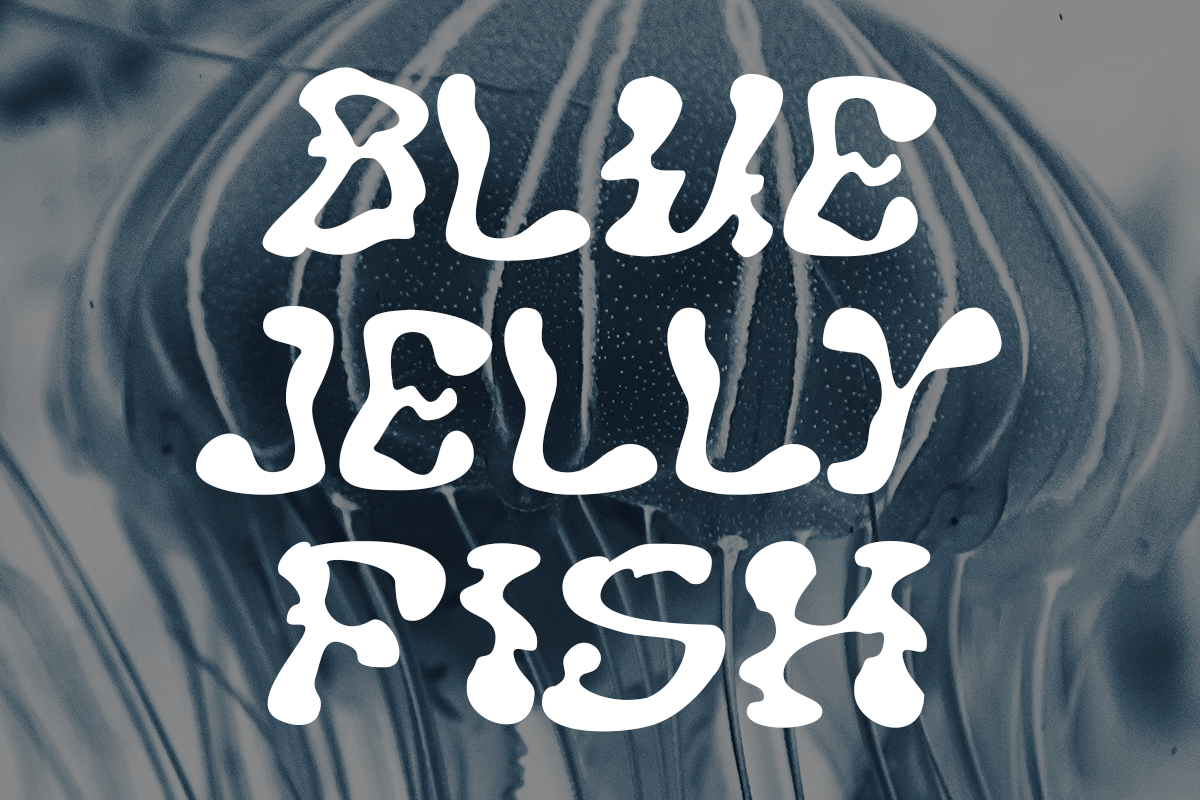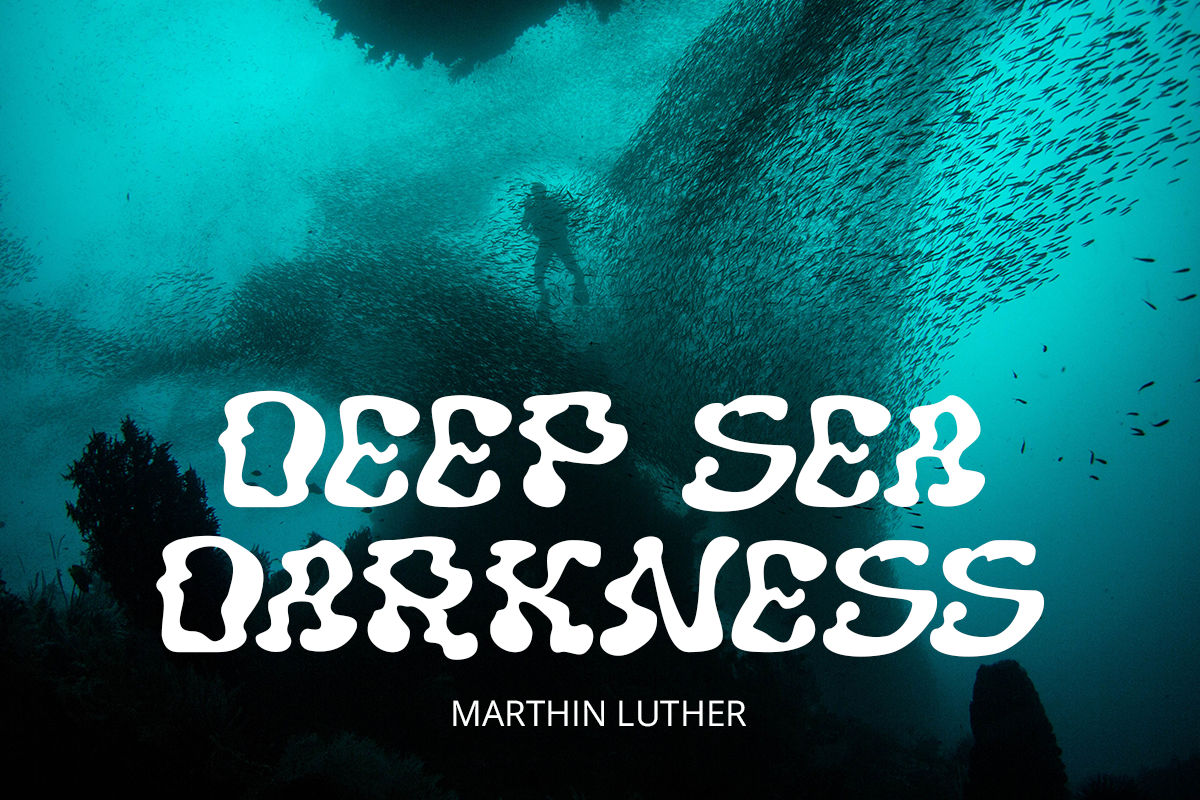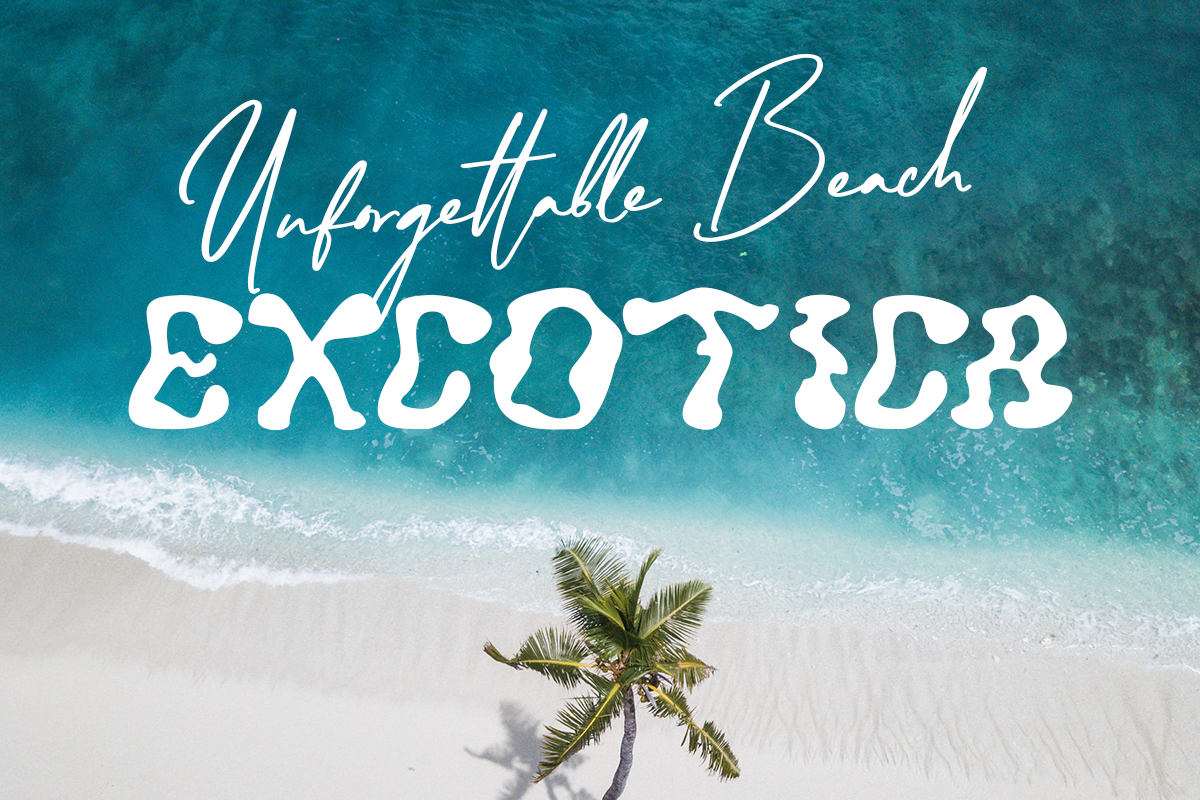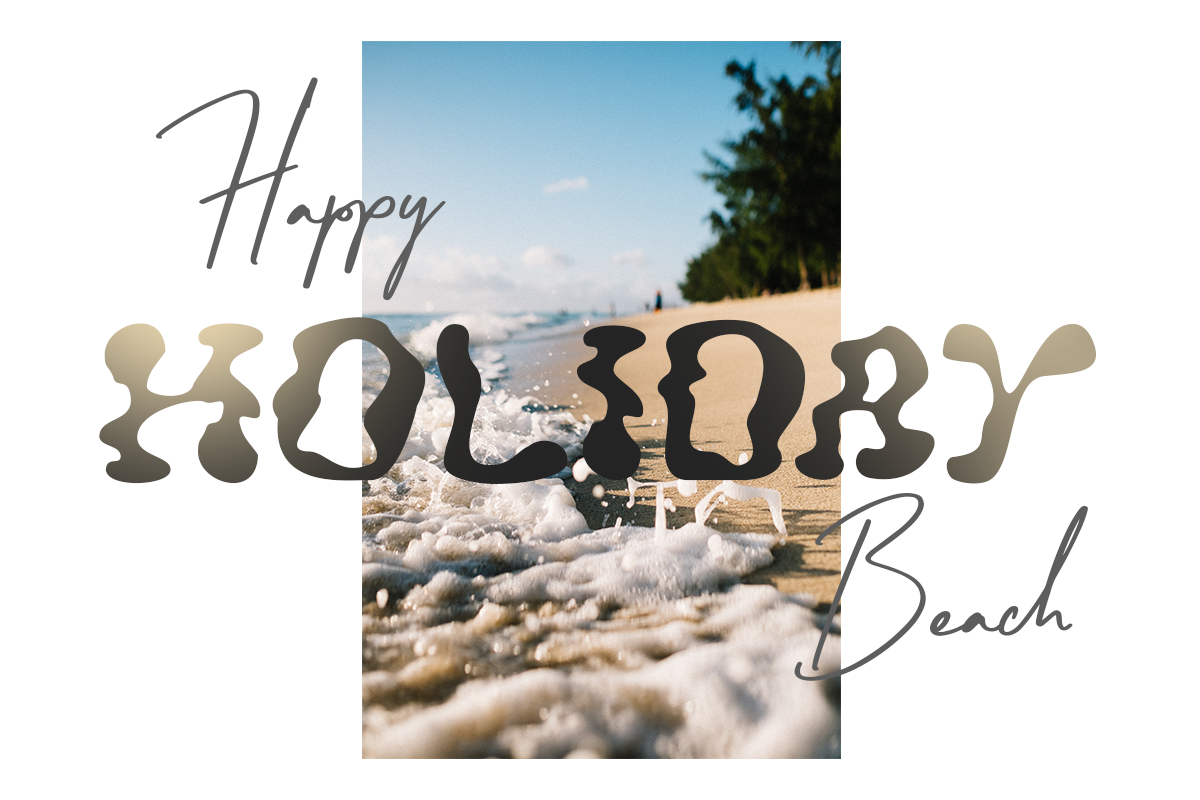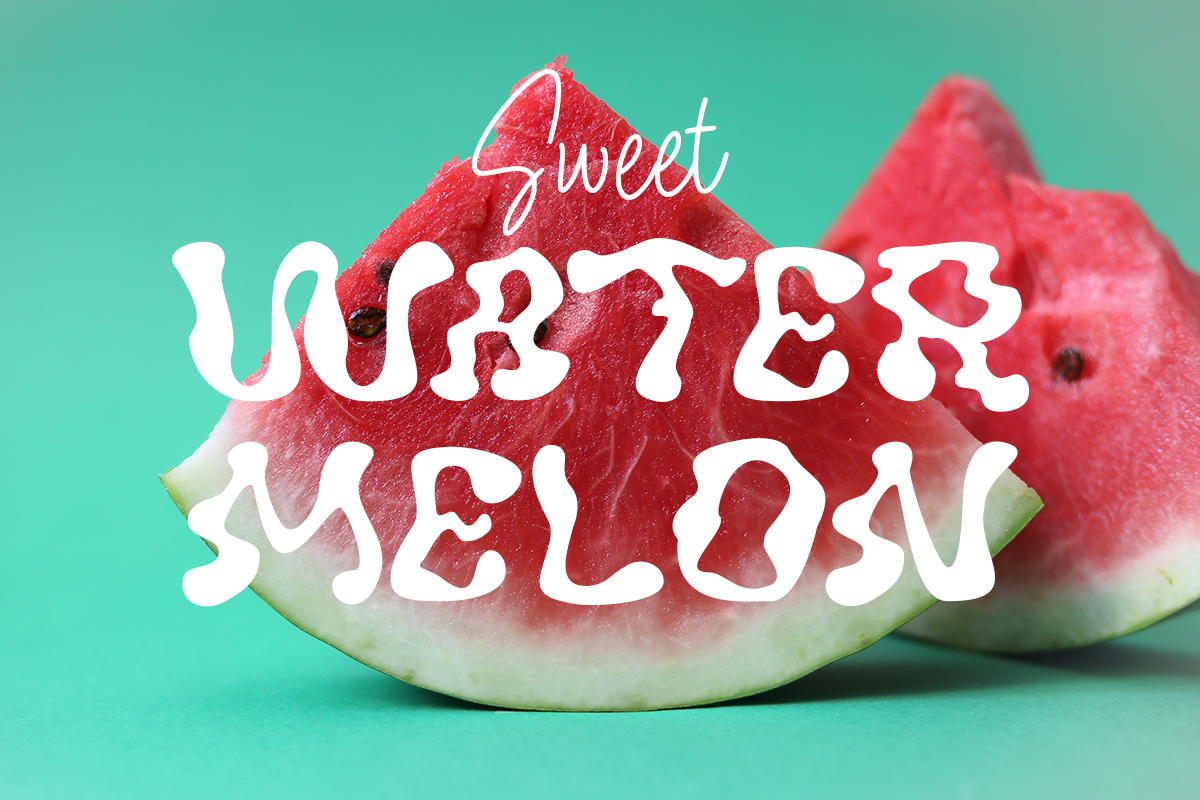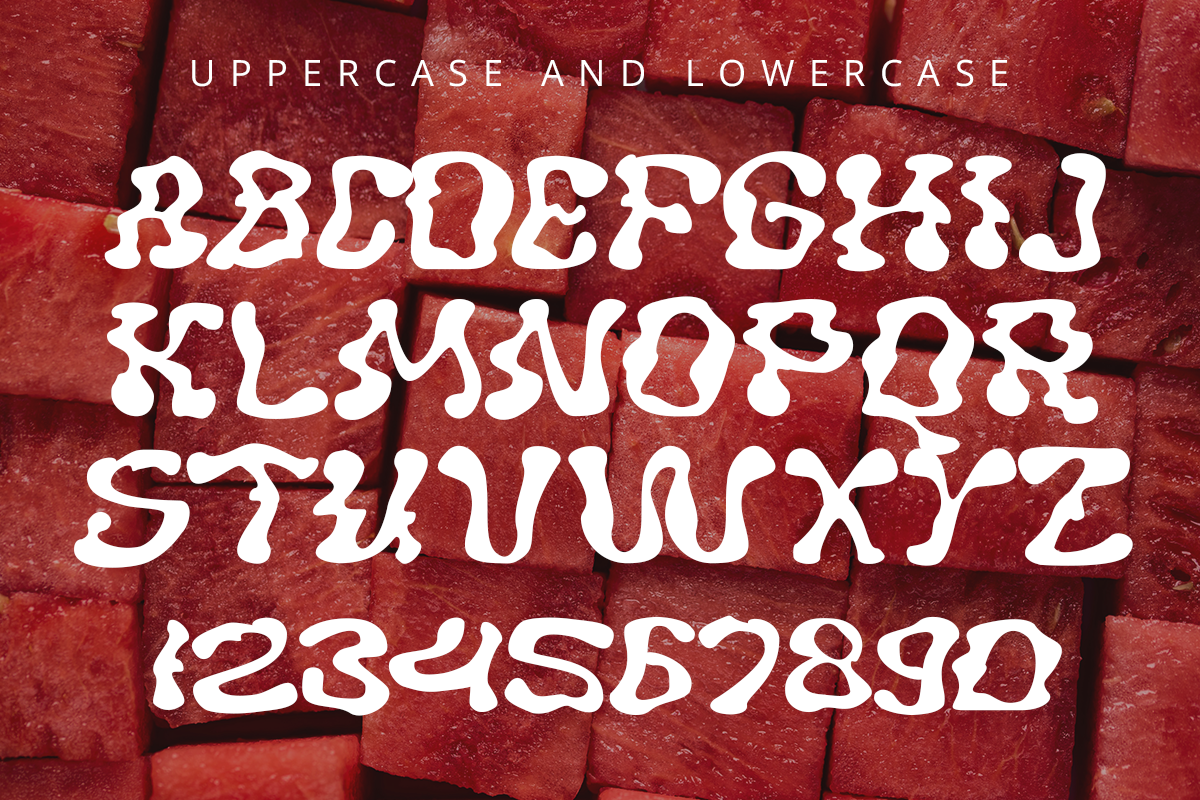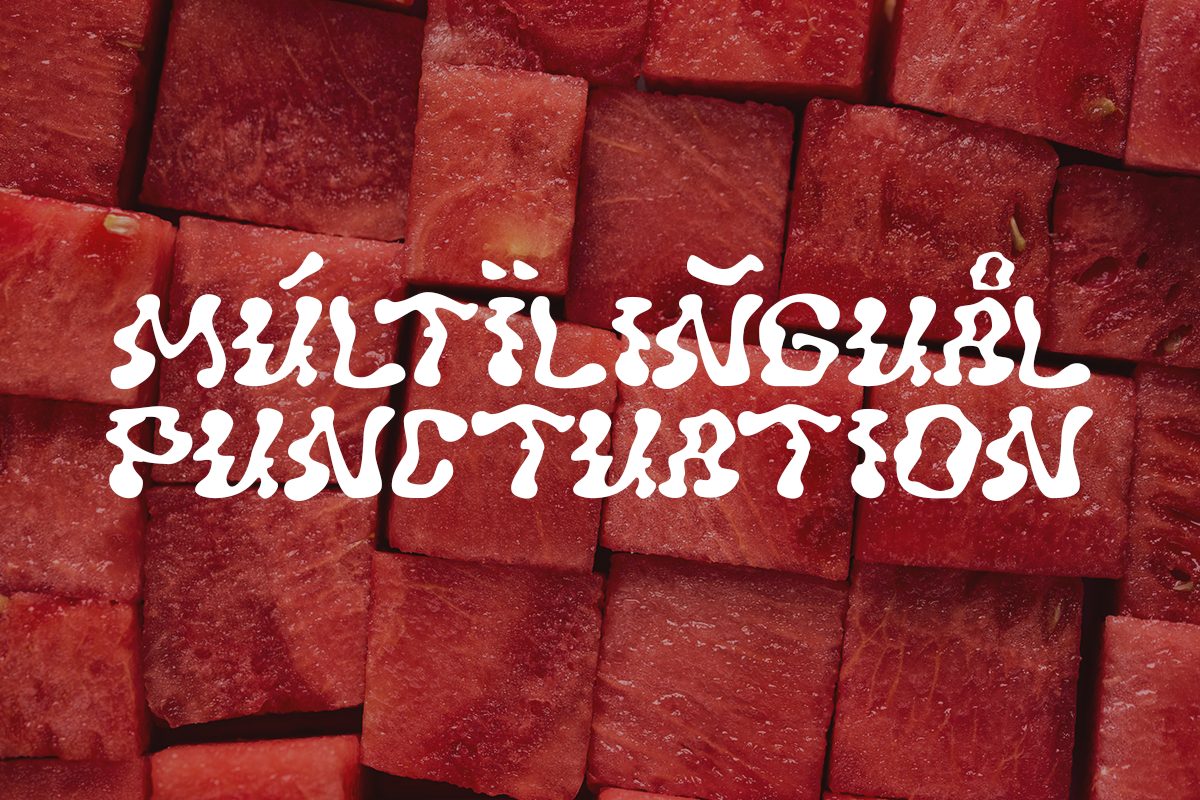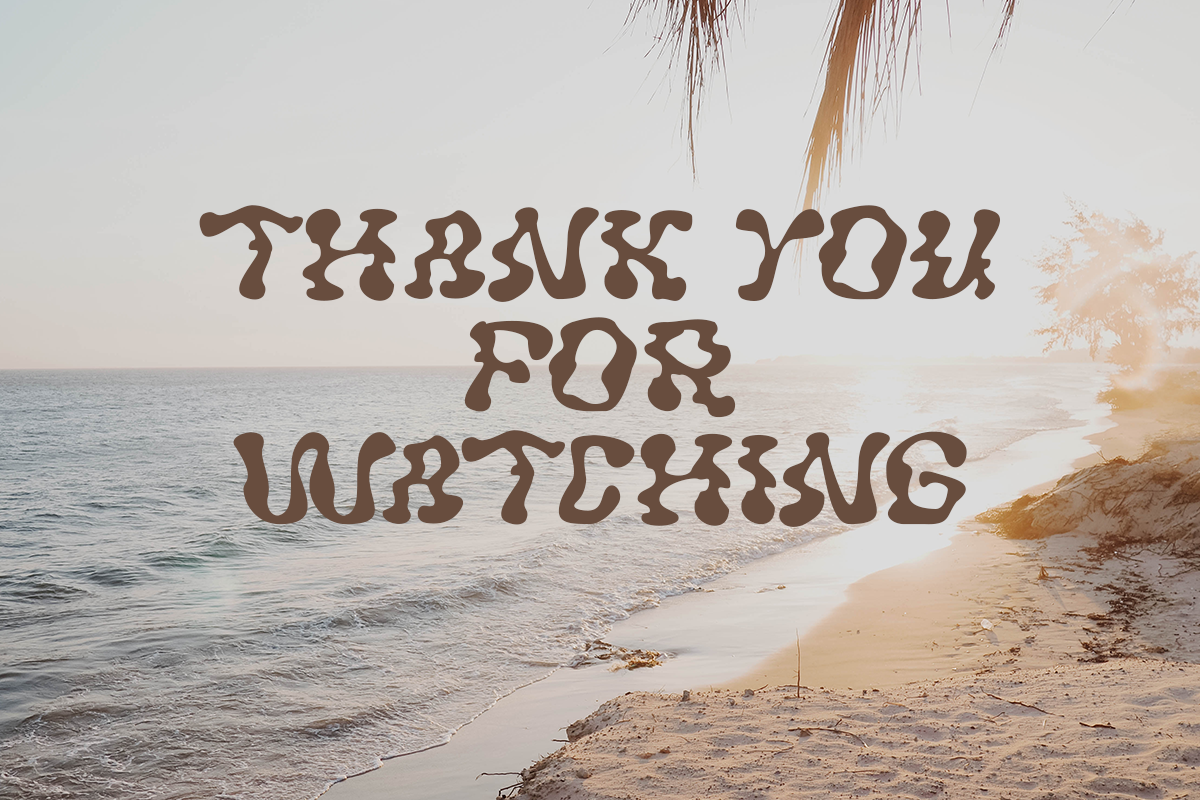
Blurity Decorative Wave Font presents a very unique and attractive appearance of decorative typography. This font is a variation of a decorative font that has a new feel. Not only in the form of ordinary letters but the typeface is equipped with wave shapes. Speaking of legibility, each character in the Blurity Decorative Wave Font has a complicated appearance that requires careful reading. Blurity Decorative Wave Font was created to celebrate a community gathering. It can use as posters and banners. Large print banners with large font sizes will also be the best choice when using this type of font for welcome party-themed banners and posters for the invitees. This font will draw everyone's attention to the words when entering a room. You can also use the Blurity Decorative Wave Font in other products, such as; t-shirts, book covers, and brand product labels. Companies that produce goods with modern themes can also use this font in their products. This font can also use as decoration in places that people often visit, such as; shopping malls, restaurants, and bars. Our display and decorative font collection are compatible with usage as Figma fonts, Canva fonts, Freepik Fonts, and Adobe Fonts. They also work as Windows Fonts and Apple Fonts. For your social media needs, you can use and install fonts in our collection of display and decorative fonts to use as Instagram Fonts, Facebook Fonts, and Twitter Fonts.